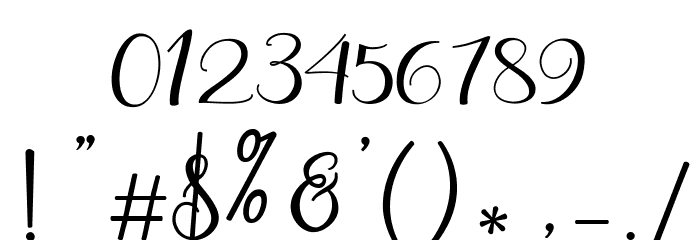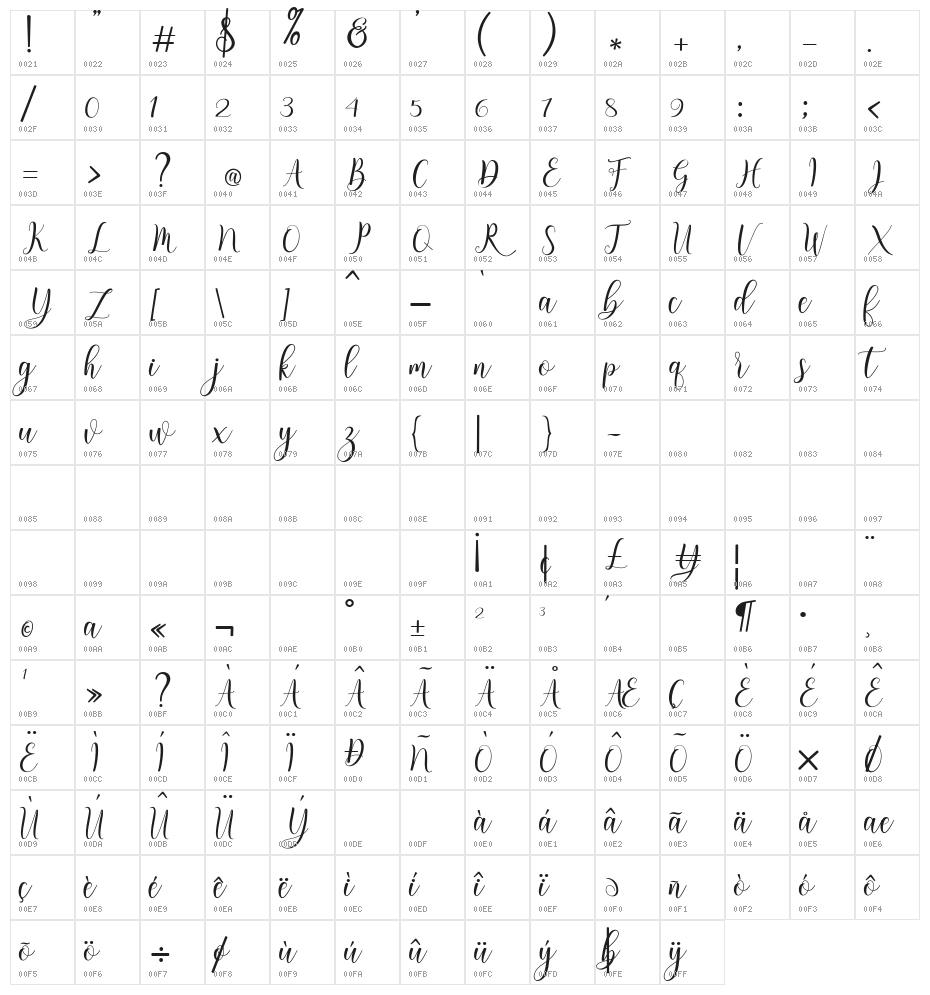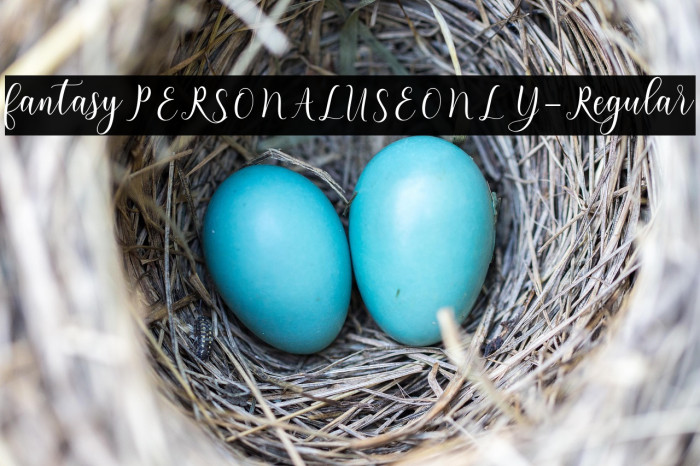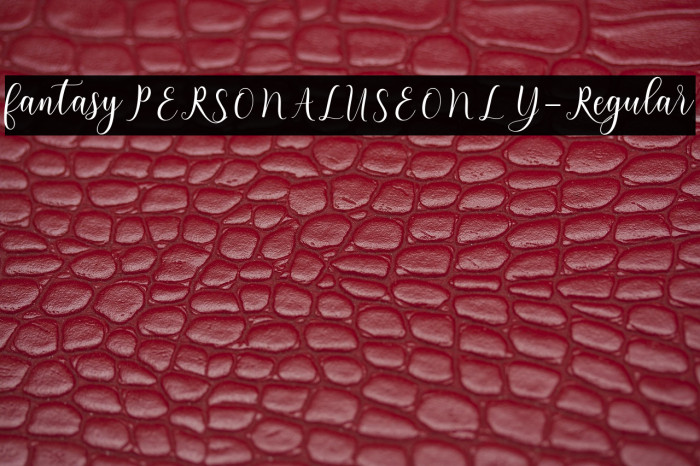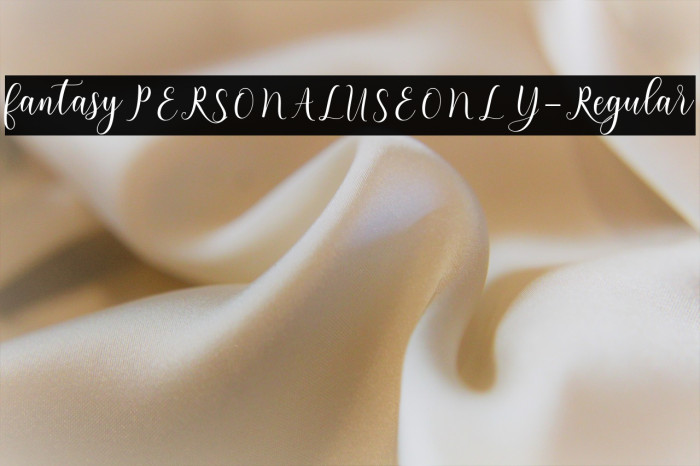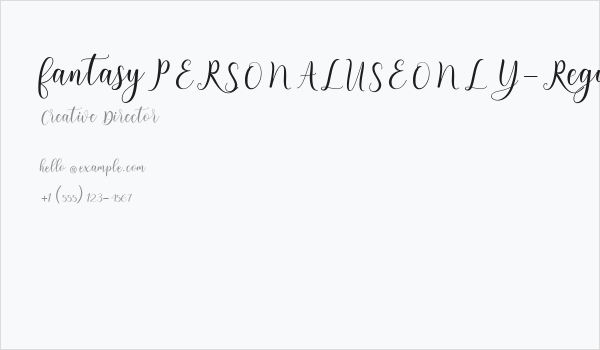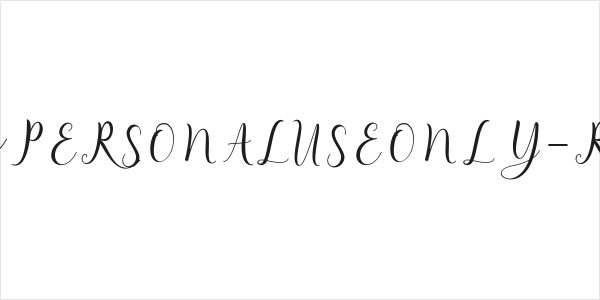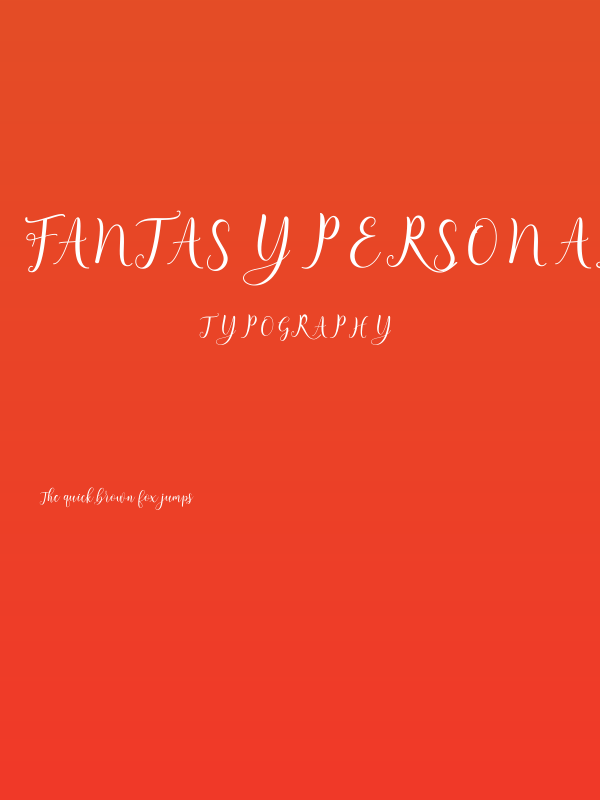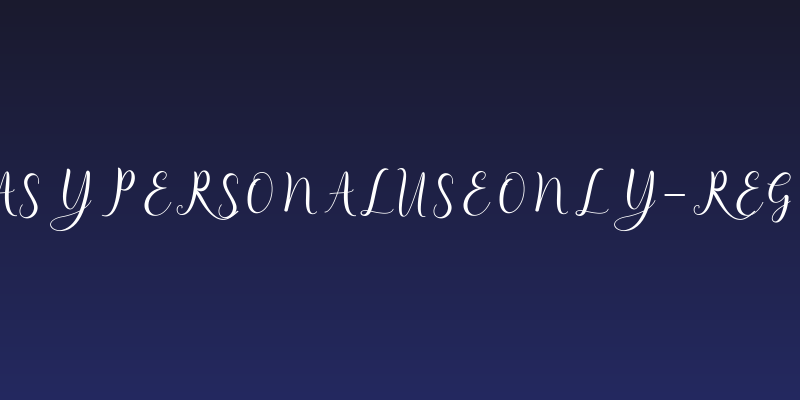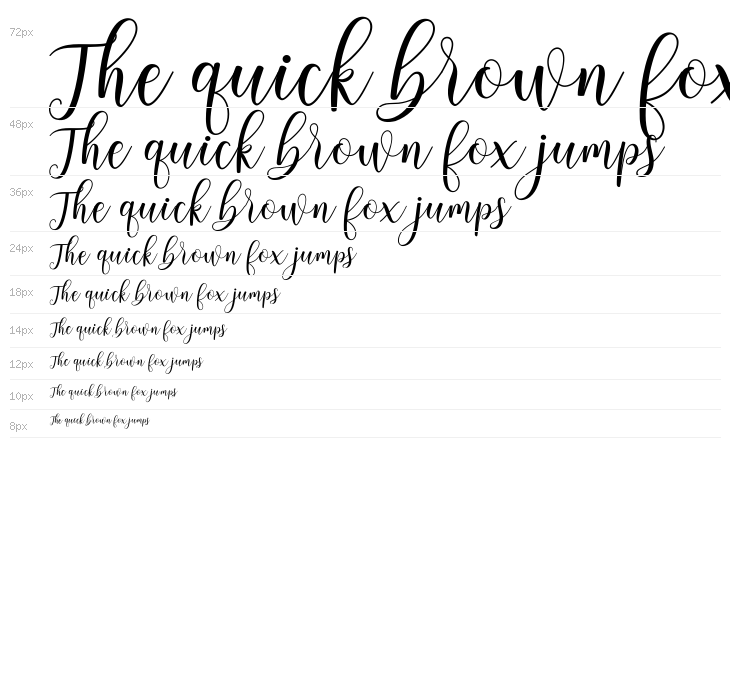
fantasyPERSONALUSEONLY-Regular Font
fantasyPERSONALUSEONLY-Regular Description
This font features an elegant and flowing script style, characterized by its graceful curves and loops. The uppercase letters are tall and slender, with a slight slant that adds a dynamic feel. The lowercase letters are more elaborate, with intricate swashes and flourishes that enhance its decorative appeal. The numerals maintain the same elegant style, ensuring consistency throughout. Special characters are also designed with the same attention to detail, making this font suitable for creative and artistic projects.